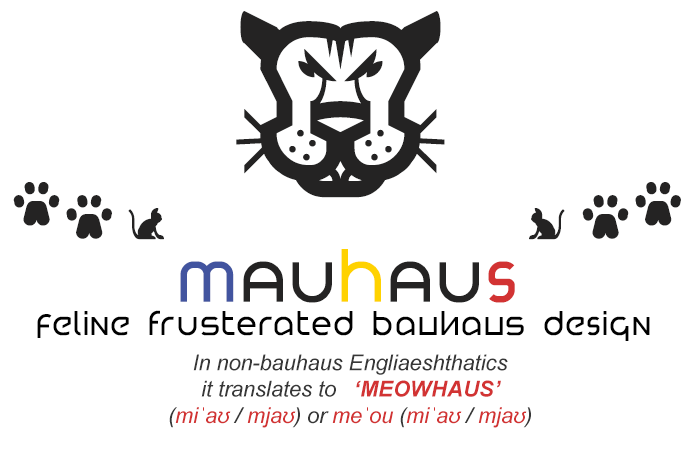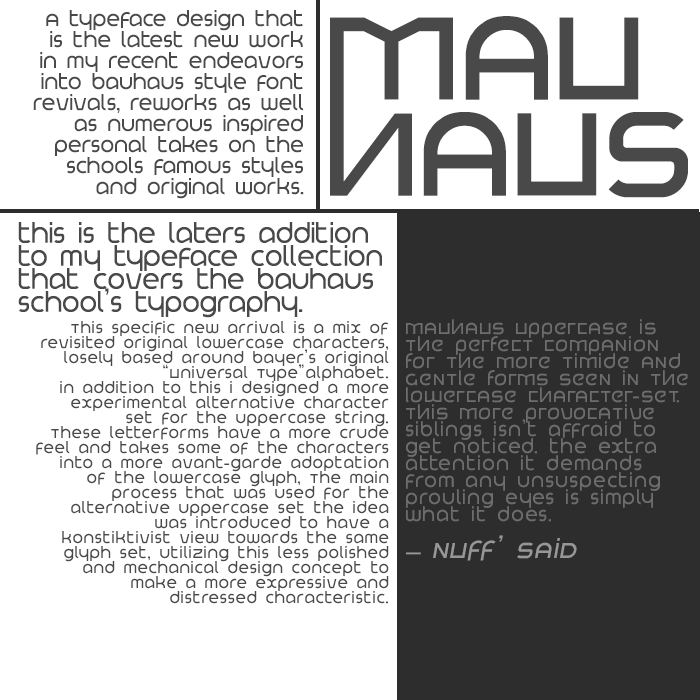
• MAUHAUS  ―  Feline inspired type design
[ THE CREATIVE PROCESS ] ━━━━━━━━━━━━━━━
This font was made because I have a cat. I love my cat, and this delight of a friend obviously loves me back. In addition to all this love, I also love to craft fonts, my cat is not to very fond about this.. So she loves to craft all sort of drama to gain my attention. Wearing me down with her mere persistence. I'm not to very fond about this.. So I slab her in the tiny face and modulate the crap out of her, stressing that nifty lil' stalker-happy pleb untill she gets a stroke. Than I make gashing incisions to all her intersects, making a pet-stencil.
No cats were harmed while making this font, this is just how we roll.
And one might wonder what a apple is doing inside a cat-font?? I know, but dont worry, the cat isn't a vegi...
― Lena say's 'Mauwww..' to all fellow FontStructors
[ FINAL WORDS ] ━━━━━━━━━━━━━━━━━━━
I guess that didn't clarify the ins and outs of this design, thats too bad !!
All I can say is that this is once again another concept following in the footsteps of the 'Bauhaus'-minimalism style and philosophy. Since I was not done yet with this whole raging Bauhaus frenzy..
― Lena hopes that nobody likes this font so far...
Meow